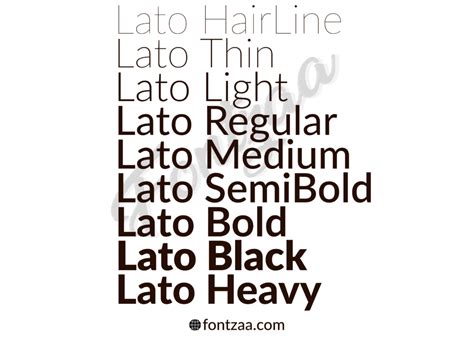
Fonts Like Lato. Web another font similar to lato is the humanist typeface style called metrisch. Web pairing it with fonts like lato alternatives adds a layer of relaxed elegance to our design endeavors.
Web another font similar to lato is the humanist typeface style called metrisch. Web pairing it with fonts like lato alternatives adds a layer of relaxed elegance to our design endeavors.
Web another font similar to lato is the humanist typeface style called metrisch. Web pairing it with fonts like lato alternatives adds a layer of relaxed elegance to our design endeavors. Web another font similar to lato is the humanist typeface style called metrisch.